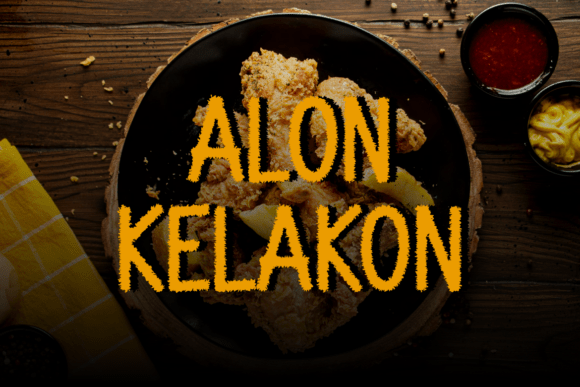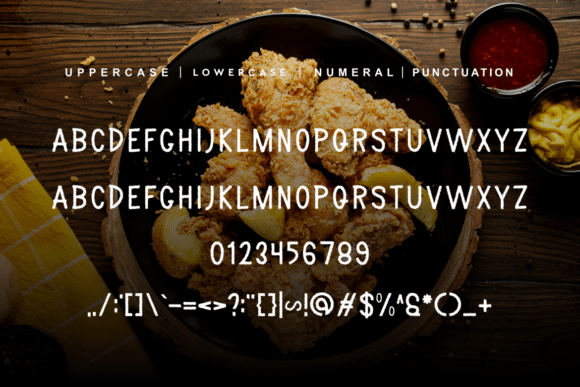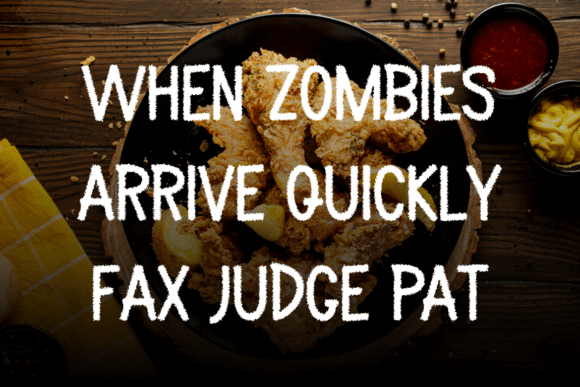
Introduction to Chicken Crayon Font
Chicken Crayon is a playful brush font with a hand-drawn crayon texture, ideal for food packaging, children’s products, or fun branding.
Its organic and rugged strokes bring a homemade, authentic feel to any design .